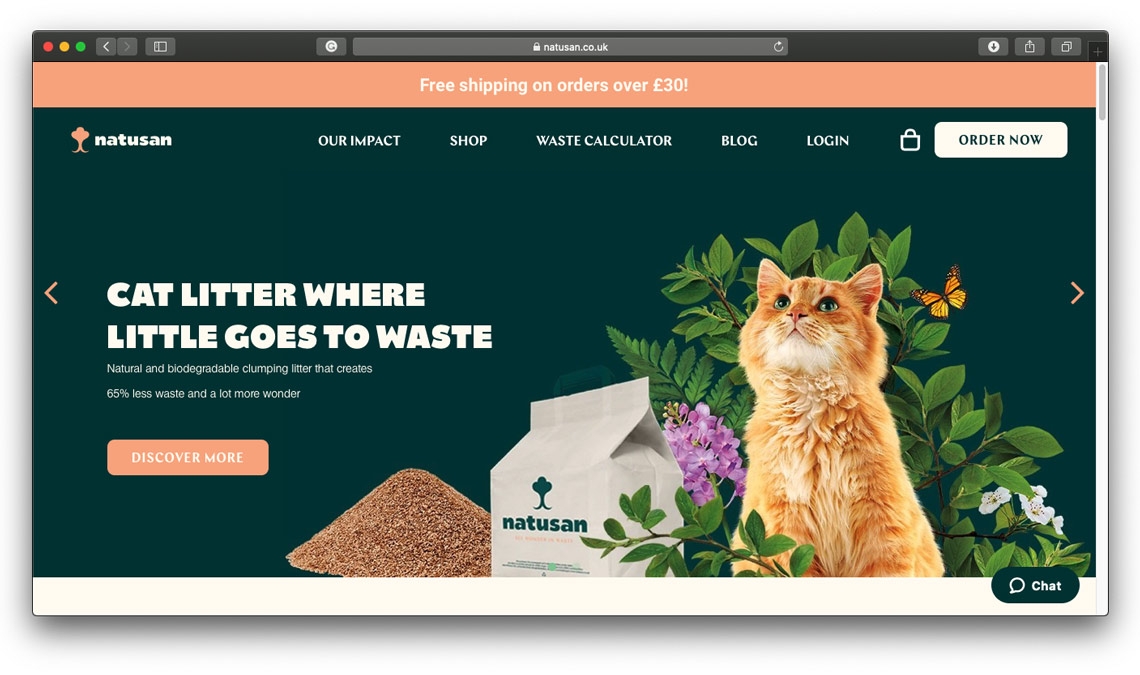
Catalpa wastes no space in cat litter brand
Catalpa takes the weight of branding, headings, and stats for Natusan cat litter.
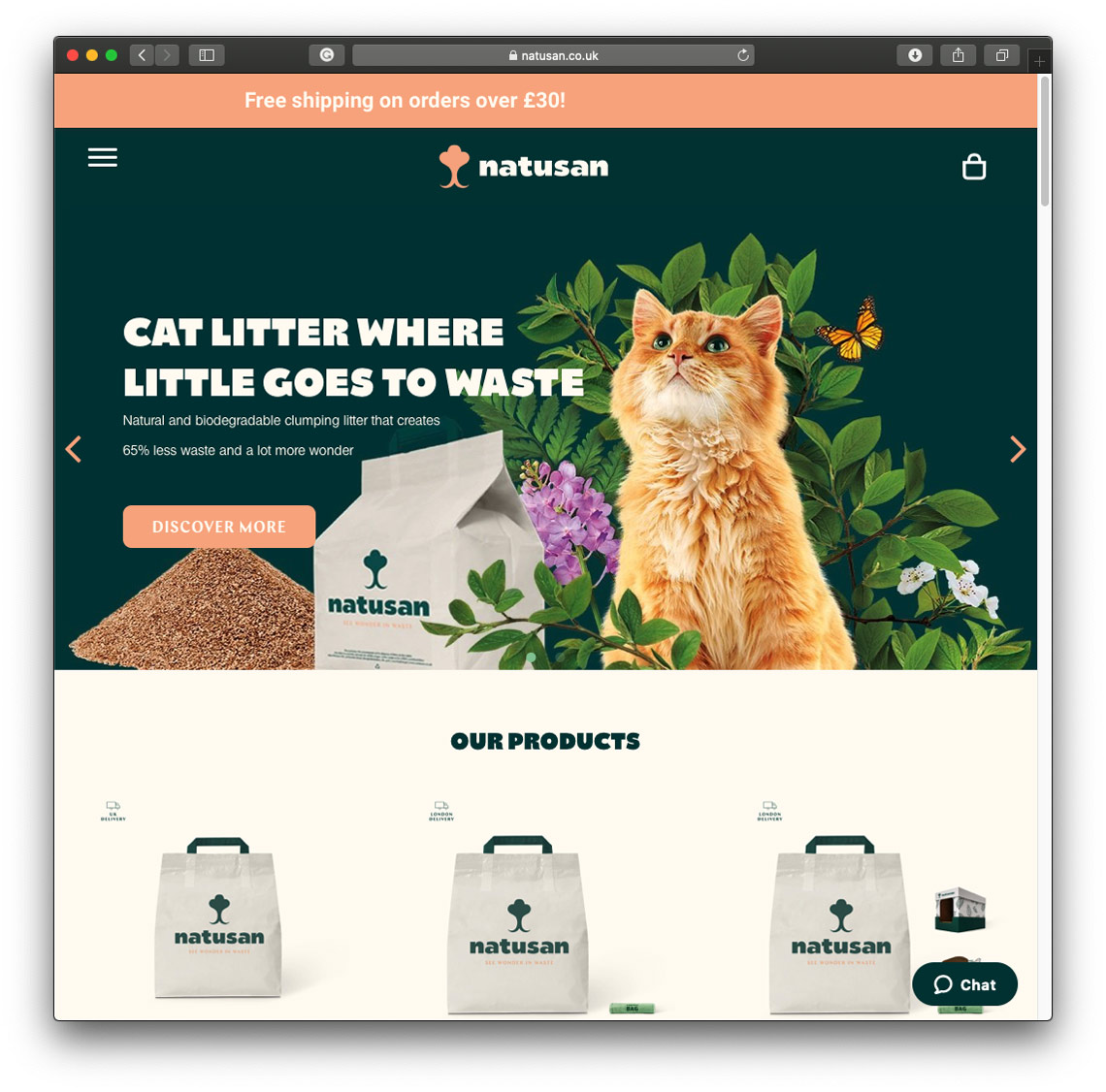
We are delighted to see Catalpa in use for the first time! We’re even more happy it’s in the branding of an eco-friendly cat litter that helps protect the Earth by creating less waste.
The agency Fast-Up was behind the design and ideation of the UK based company Natusan. Catalpa has been used here in the all-lowercase Natusan logo (find the hidden image!) and product packaging, as well as for the website headings, stats, and other short texts.
Catalpa makes the whole brand approachable and not-stuffy, gives statistics a little heft and levity, and paves the way for the brand to serve the world in an unique way.